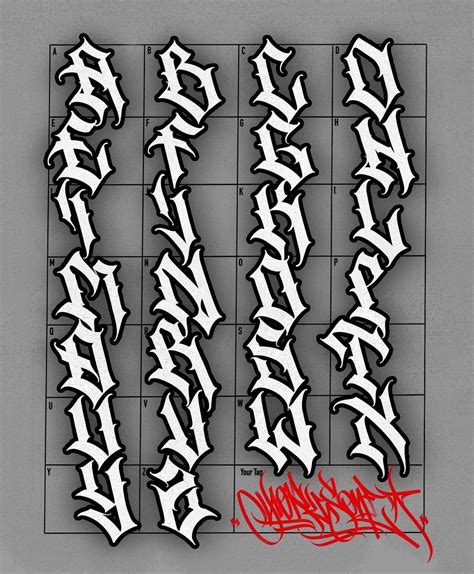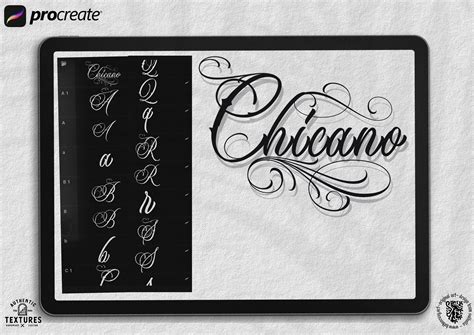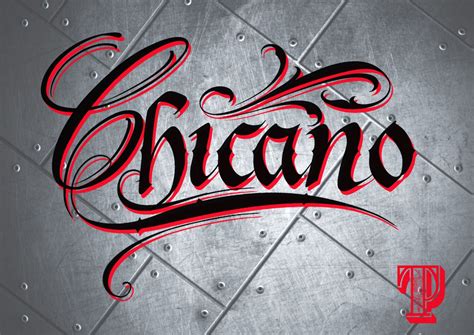
Embarking on a journey into the vibrant world of typography, one cannot overlook the rich cultural heritage embedded in various font styles. Among these, the Lettering Chicano Font stands out as a unique and expressive form of art that blends traditional lettering techniques with the vibrant spirit of Chicano culture. This font style is more than just a set of characters; it is a visual representation of a community's history, struggles, and triumphs.
Understanding the Chicano Culture
The term "Chicano" refers to people of Mexican descent living in the United States, particularly those who have a strong cultural and political identity rooted in their Mexican heritage. Chicano culture is a blend of Mexican traditions, indigenous influences, and American experiences. It is a culture that celebrates resilience, community, and a deep sense of identity.
Chicano art, including the Lettering Chicano Font, often incorporates elements such as:
- Bold colors and vibrant patterns
- Symbolic imagery, such as the Aztec eagle and serpent
- Social and political commentary
- Traditional Mexican motifs, like sugar skulls and marigolds
The Evolution of Lettering Chicano Font
The Lettering Chicano Font has evolved over decades, reflecting the changing dynamics of the Chicano community. Initially, Chicano lettering was heavily influenced by graffiti and street art, often seen on walls and public spaces. Over time, it has transitioned into more refined and stylized forms, making its way into digital media, graphic design, and even mainstream advertising.
One of the key characteristics of the Lettering Chicano Font is its bold and dynamic style. The letters are often thick and rounded, with intricate details and flourishes that add a sense of movement and energy. This style is not just about aesthetics; it carries a deeper meaning, often conveying messages of pride, resistance, and cultural identity.
Key Features of Lettering Chicano Font
The Lettering Chicano Font is distinguished by several key features that set it apart from other typographic styles:
- Bold and Dynamic Design: The letters are thick and rounded, with a strong presence that demands attention.
- Intricate Details: The font often includes intricate flourishes and details that add depth and character.
- Cultural Symbols: Incorporation of cultural symbols and motifs that reflect the rich heritage of the Chicano community.
- Vibrant Colors: Often used in vibrant colors that evoke the spirit of Mexican festivals and celebrations.
These features make the Lettering Chicano Font a powerful tool for designers looking to add a touch of cultural authenticity and visual impact to their projects.
Applications of Lettering Chicano Font
The versatility of the Lettering Chicano Font makes it suitable for a wide range of applications. Here are some areas where this font style shines:
- Graphic Design: Ideal for creating posters, flyers, and other promotional materials that need to stand out.
- Branding: Perfect for brands that want to convey a sense of cultural heritage and authenticity.
- Digital Media: Used in web design, social media graphics, and digital advertisements to add a unique touch.
- Art and Illustration: Often incorporated into murals, paintings, and other forms of visual art.
One of the most notable applications of the Lettering Chicano Font is in the realm of social and political activism. Chicano artists often use this font style to create powerful messages that resonate with their community and beyond. The bold and dynamic nature of the font makes it an effective tool for conveying strong emotions and ideas.
Creating Your Own Lettering Chicano Font
If you're inspired to create your own Lettering Chicano Font, here are some steps to get you started:
- Study the Basics: Familiarize yourself with the key features of Chicano lettering, including bold designs, intricate details, and cultural symbols.
- Choose Your Tools: Decide whether you want to create your font digitally using software like Adobe Illustrator or Photoshop, or if you prefer traditional methods like hand-lettering and calligraphy.
- Sketch Your Design: Start with rough sketches to experiment with different styles and designs. Focus on creating bold, dynamic letters with intricate details.
- Refine Your Design: Use your chosen tools to refine your sketches, adding flourishes and cultural symbols as needed.
- Test and Iterate: Test your font in different contexts to see how it looks and feels. Make adjustments as needed to ensure it meets your design goals.
📝 Note: Creating a Lettering Chicano Font requires a deep understanding of the cultural context and symbolism. It's important to approach this process with respect and sensitivity to the community's heritage.
Inspiration from Chicano Artists
Many Chicano artists have made significant contributions to the development of the Lettering Chicano Font. Their work serves as a rich source of inspiration for anyone interested in this style. Here are a few notable artists: